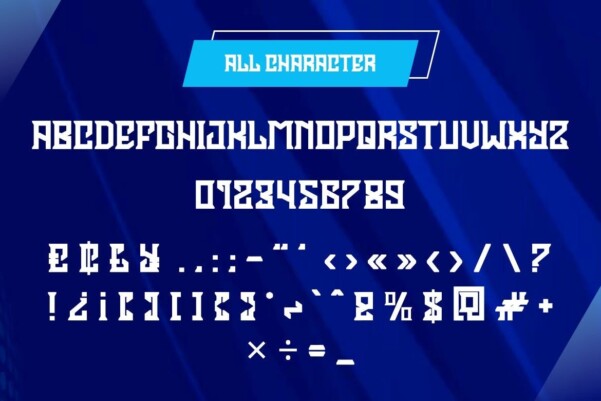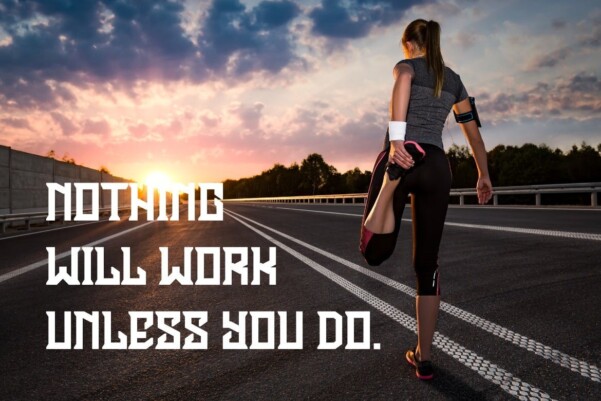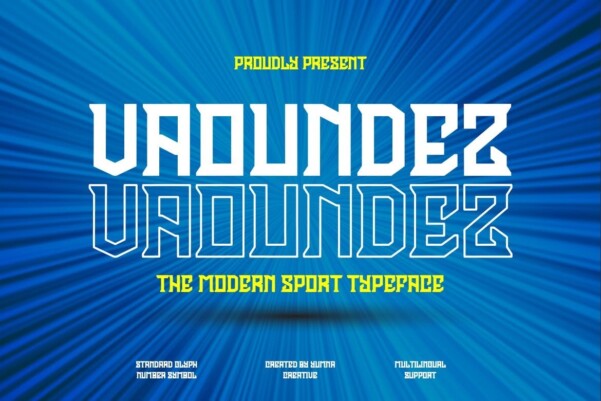
Vaoundez Font
Designer: Yumnacreative
Vaoundez Font – Modern Sports Font. This font is a delicate, elegant and smooth handwritten font. It has a beautiful and unique mix of ligatures per letter, so the authors have composed it with a slight swirl overlay, so that a modern font is formed and ready to make a splash by adding an elegant and unique touch to your next design project. Add it to your most creative ideas and watch how it brings them to life!